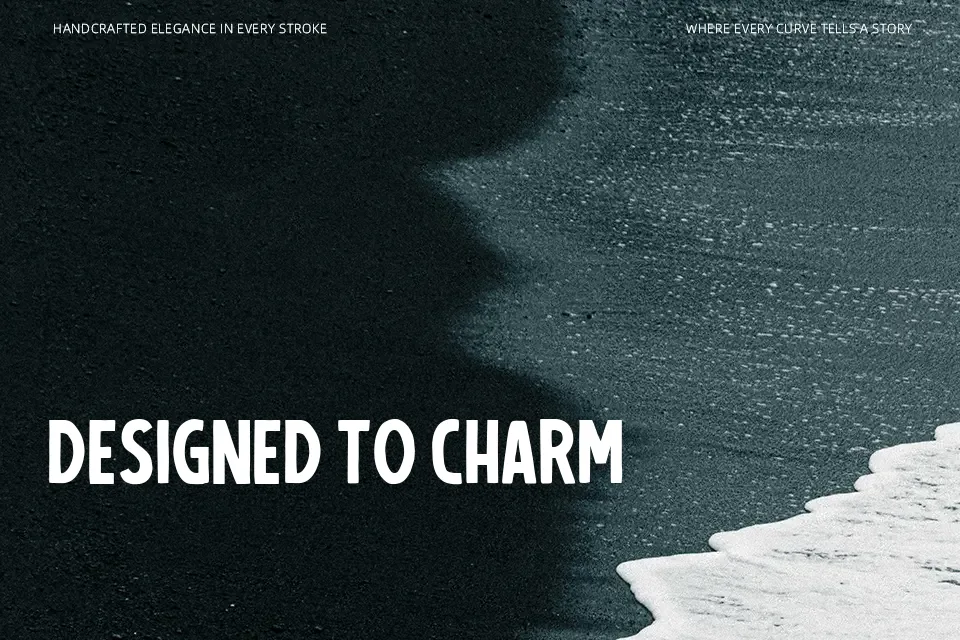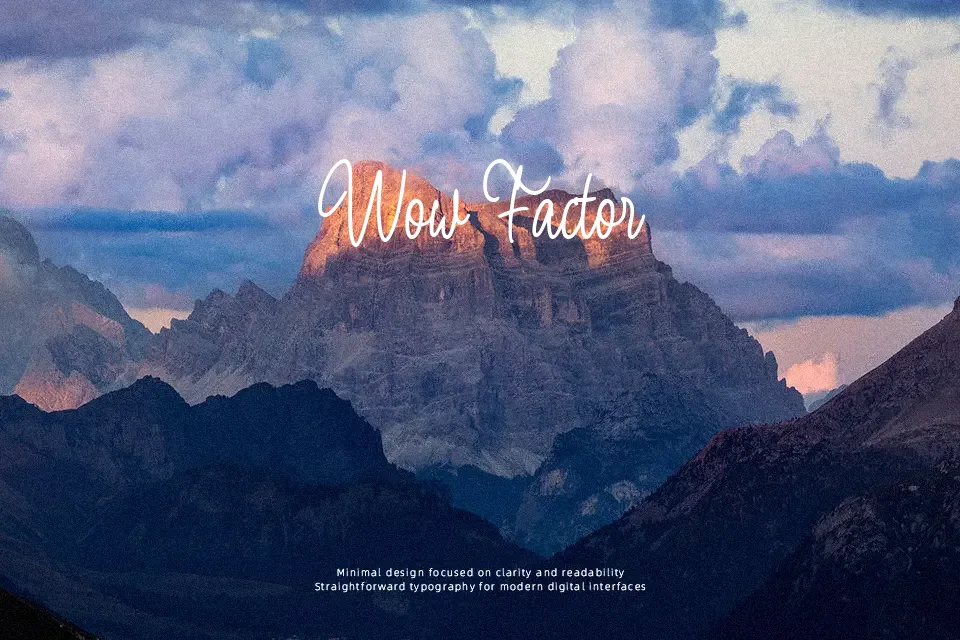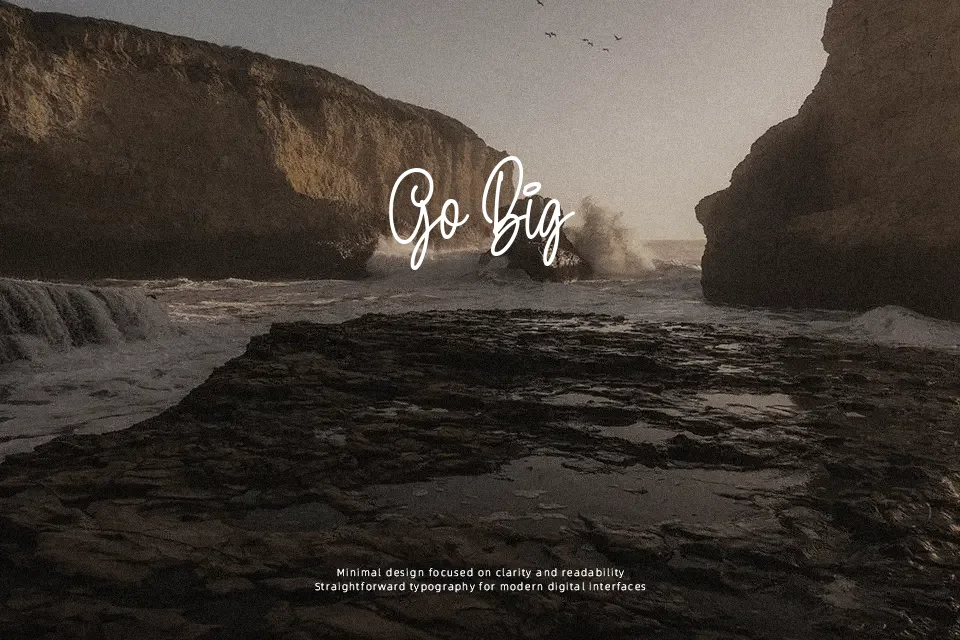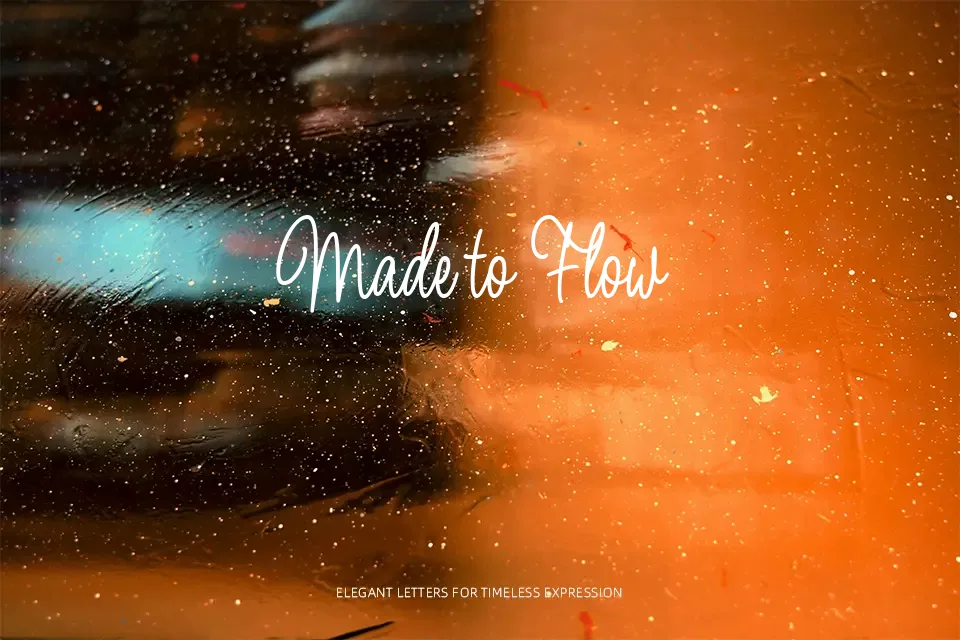
Bulgary Reagans Font
Bulgary Reagans combines a loose handwritten script with a simple sans companion, giving you an easy way to build headings and taglines that feel informal but still readable. The script side leans on rounded strokes, gentle curves, and varied weight, while the sans stays cleaner and more even, so the two styles support each other rather than compete. It works especially well on brand marks, café packaging, quote posts, and greeting cards where you need warmth and personality more than strict precision. For dense body text, technical interfaces, or very corporate documents, the hand-drawn character can feel out of place and a little tiring to read in long blocks.
casual branding and logos for lifestyle products
social media quote posts and story covers
packaging for cafés,bakeries,or handmade goods
greeting cards and invitations with a relaxed tone
long-form body text or dense paragraphs
formal corporate documents and reports
strict UI layouts that need highly neutral type
technical manuals or data-heavy editorial pages
Perfect for branding, invitation, and logo, with a artistic and display style.